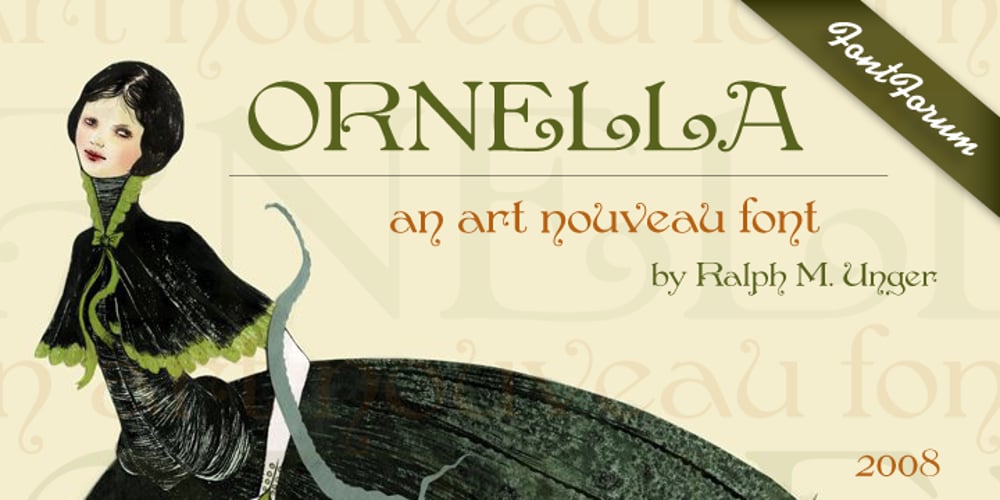
Ornella Font Family was designed by Ralph M. Unger and published by URW Type Foundry. Ornella contains 1 styles and family package options. Ornella is a very typical art nouveau typeface that perfectly fits into the series of URW++ Jugendstil fonts released in the last couple of years. Ornella was reworked, redesigned, completed and digitally remastered by Ralph M. Unger for URW++, based on specimen taken from old font catalogues.